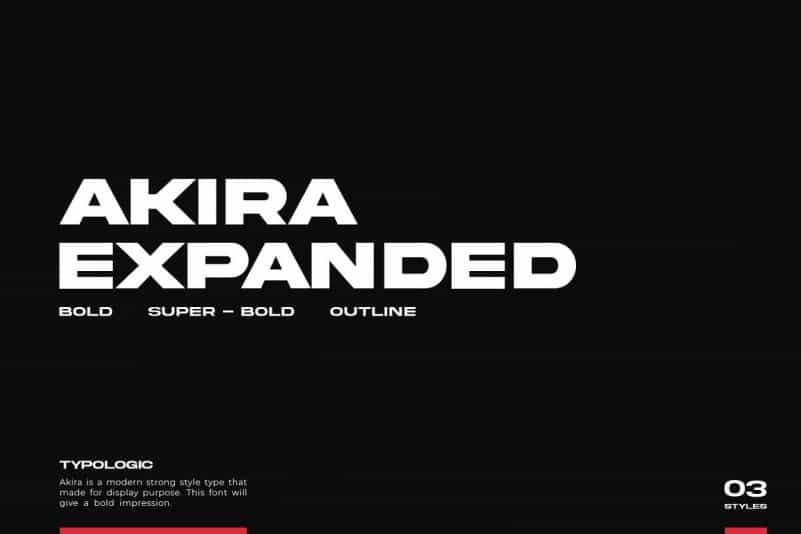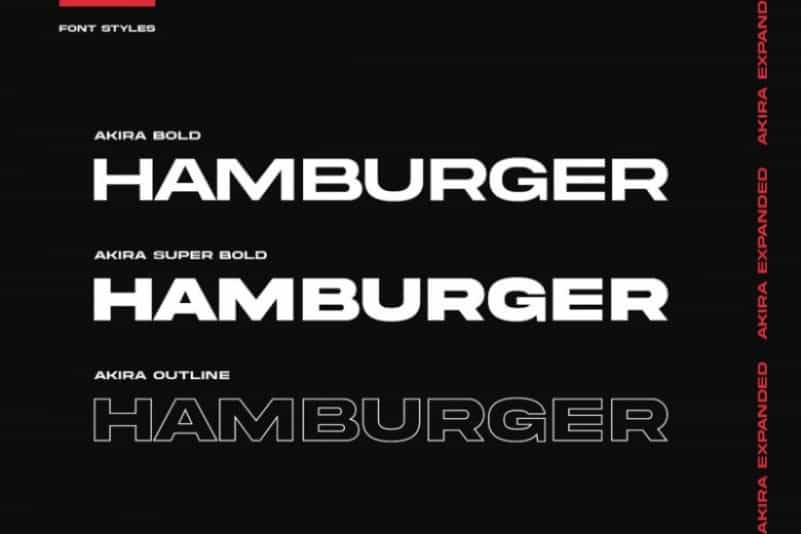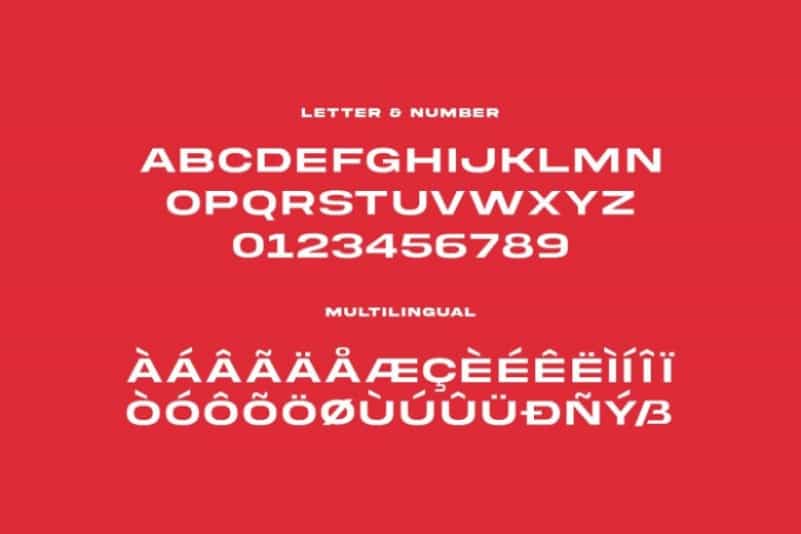
Akira Expanded Font brings an bold touch to your design projects. Its strong style makes it ideal, for use as the text or header on websites and layout designs. Additionally Akira Expanded offers glyphs for customization.